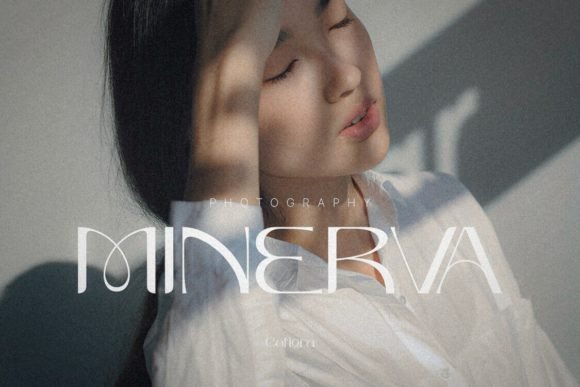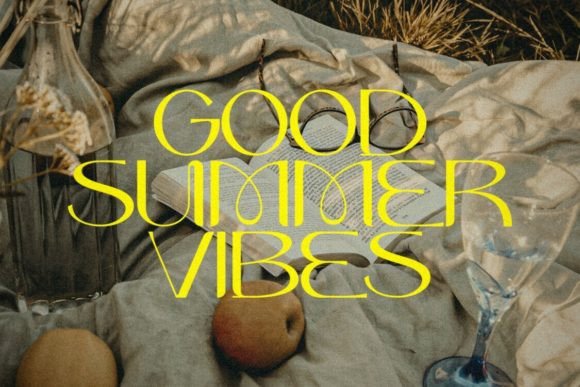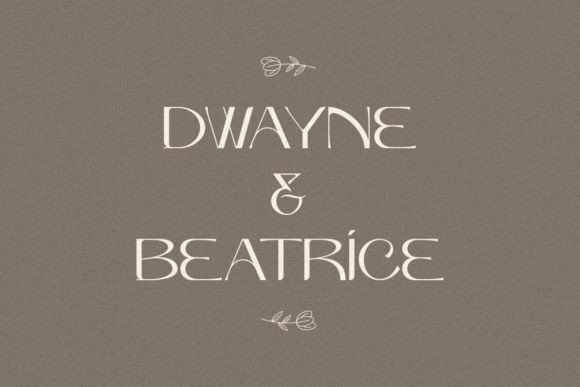
Introduction to Cofigra Font
Cofigra has a blend of beauty and classy feel, which has a variety of uses but is primarily intended for logos, book covers, perfumes, fashion magazines, or invitations.
Not only will you find lots of decorative characters, but also the number of unique alternative characters will make you fall in love with this font .